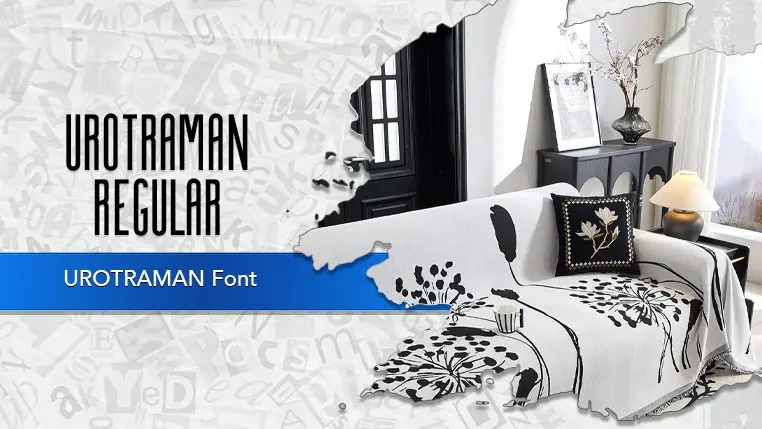
The UROTRAMAN font family may be ideal for you if you enjoy working on an artistic design project. The lively, expressive look of this typeface, which was created by Rodrigo Vargas, makes it ideal for Titles and headlines. The font's industrial and grotesque qualities lend themselves well to designs that require a powerful and modern aesthetic. Its condensed nature allows for efficient use of space while maintaining legibility, making it suitable for situations where text needs to be impactful but also fit within a tight area. and other light-hearted visual projects.
REGULAR are the one primary font styles of the UROTRAMAN font family. You may build dynamic, visually appealing text layouts with the distinct flair that each style offers. With crisp, readable lines and a relaxed tone.